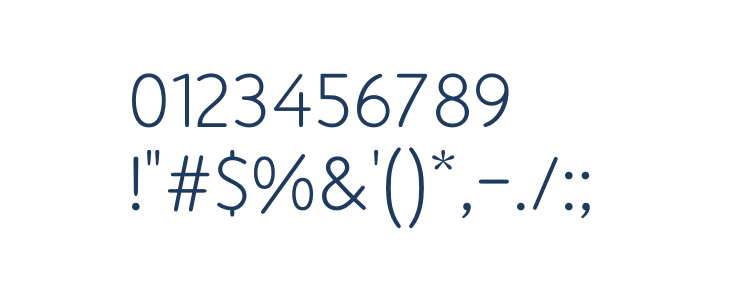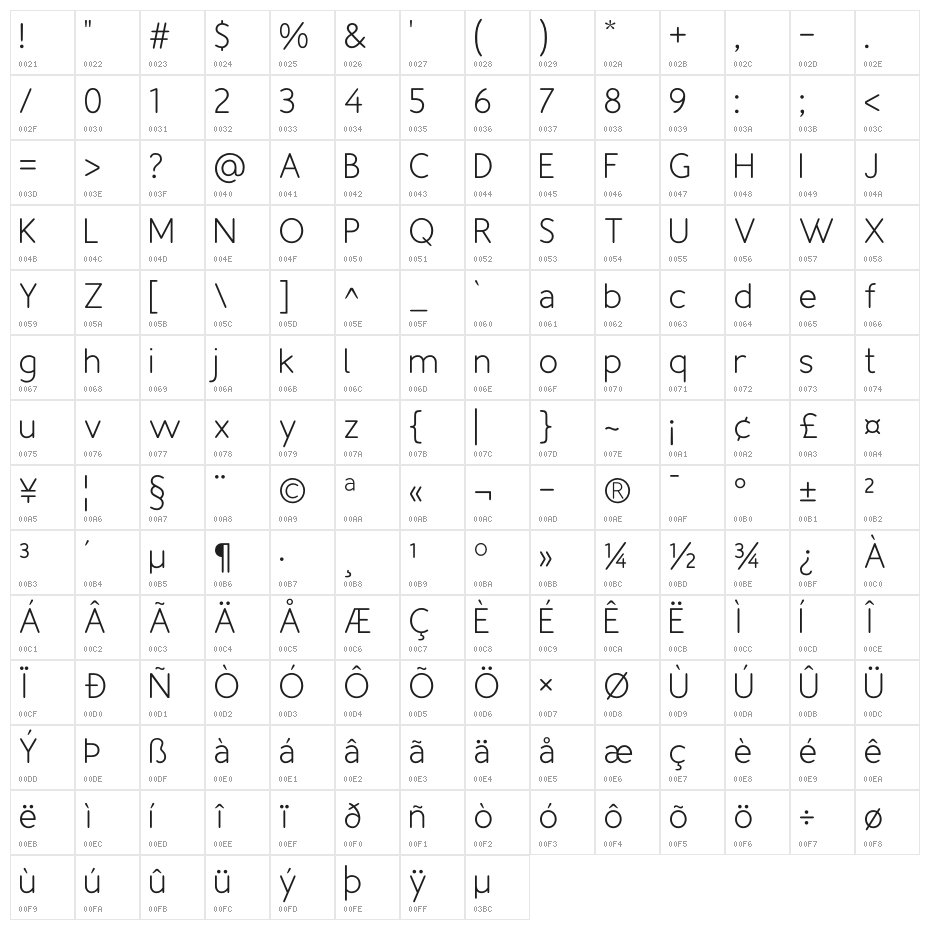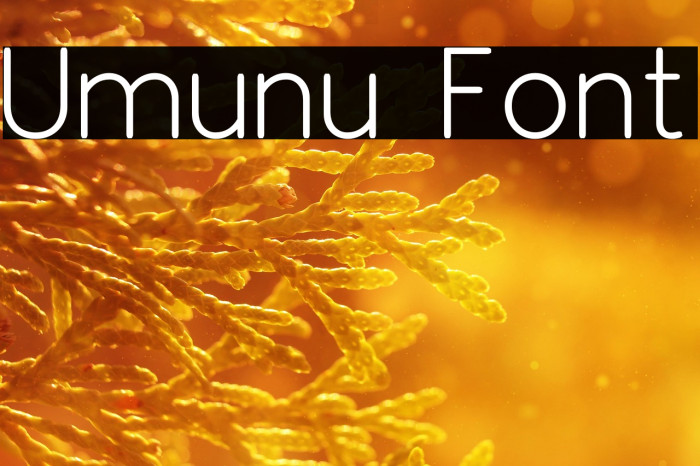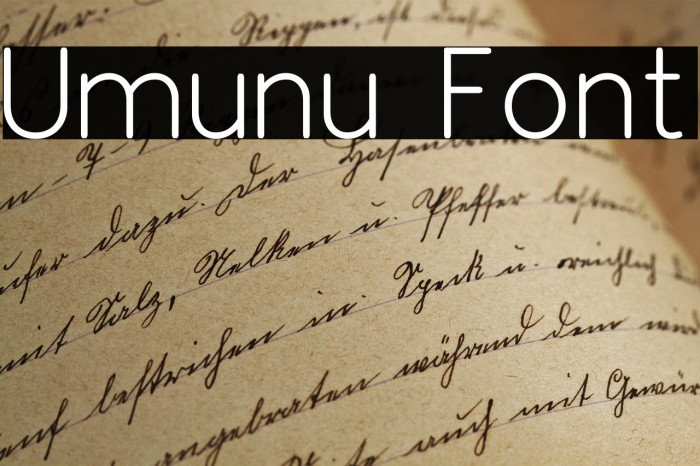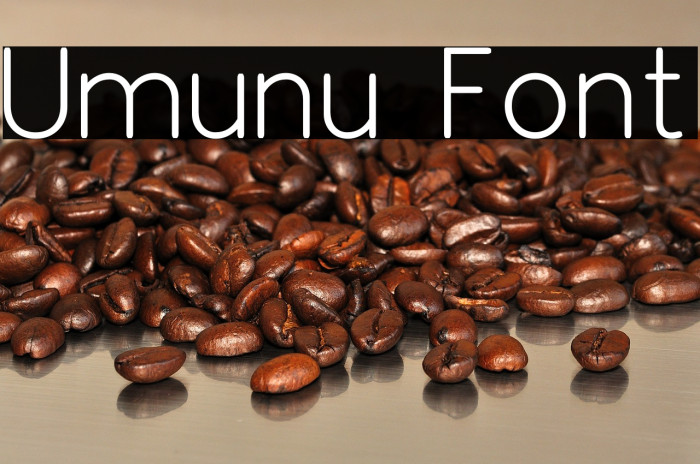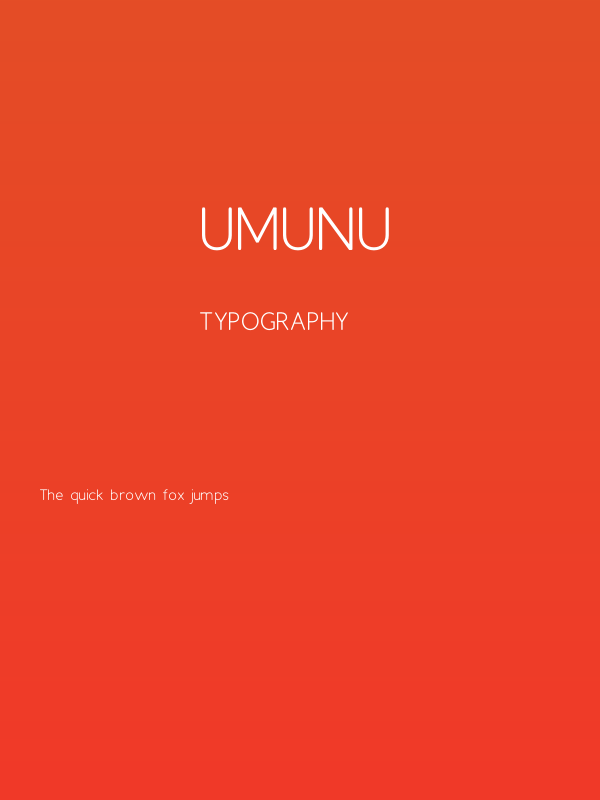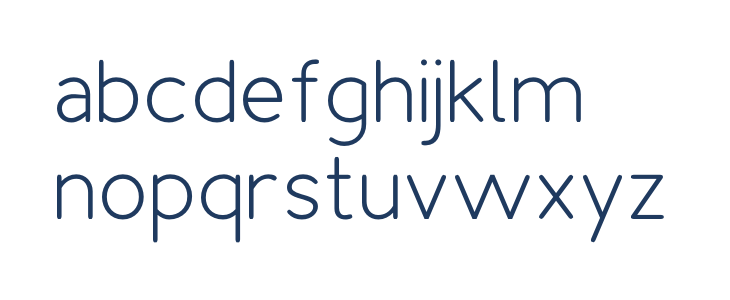
Umunu Font
Umunu Description
This font features a clean and modern sans-serif design with uniform stroke widths and smooth curves. The characters are well-balanced, offering a harmonious appearance that is easy to read. The uppercase letters are slightly taller than the lowercase, providing a clear distinction between the two. The numerals are proportionate and align well with the text, maintaining the font's overall sleek aesthetic. Special characters are designed to complement the alphabet, ensuring consistency throughout. This font's simplicity and clarity make it versatile for various applications.
| Proposed Projects | Ideal for digital interfaces, branding, advertising, and editorial design. |